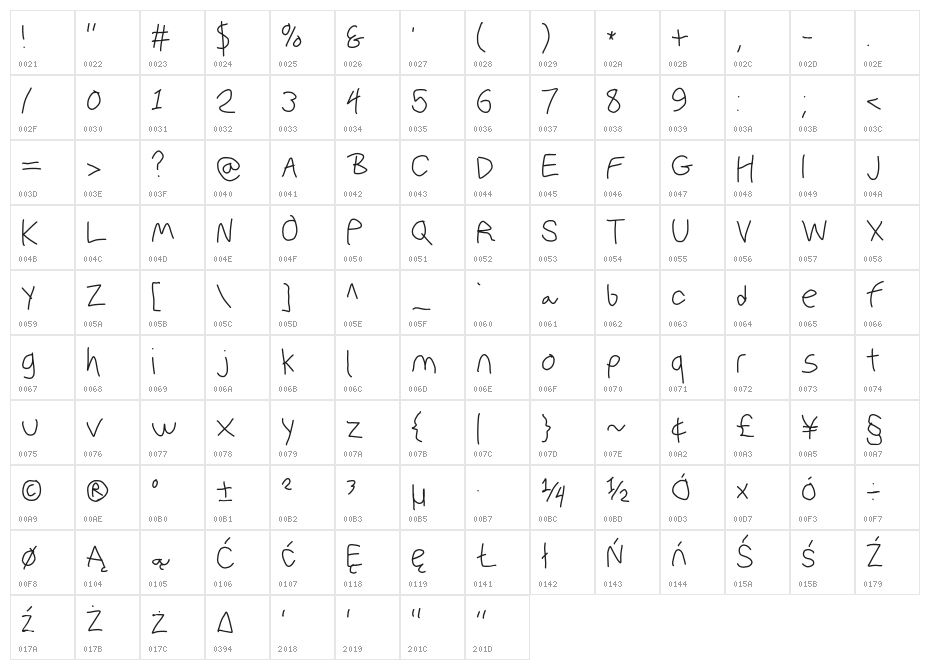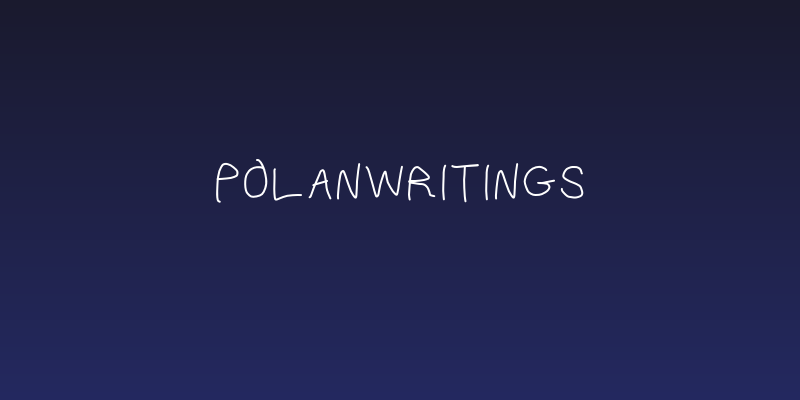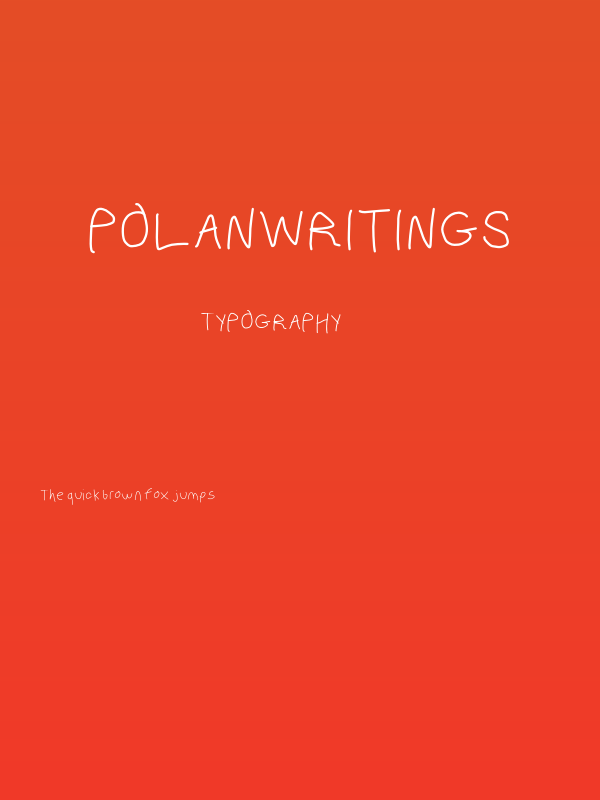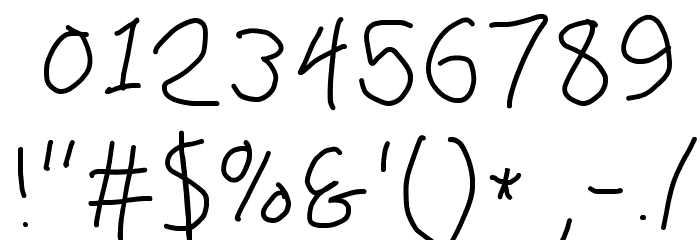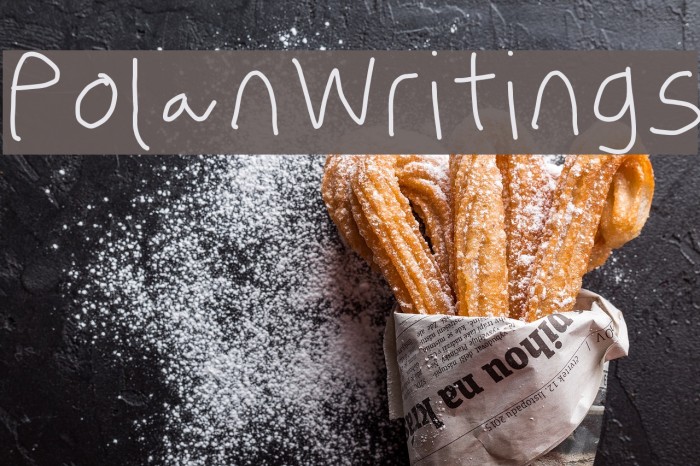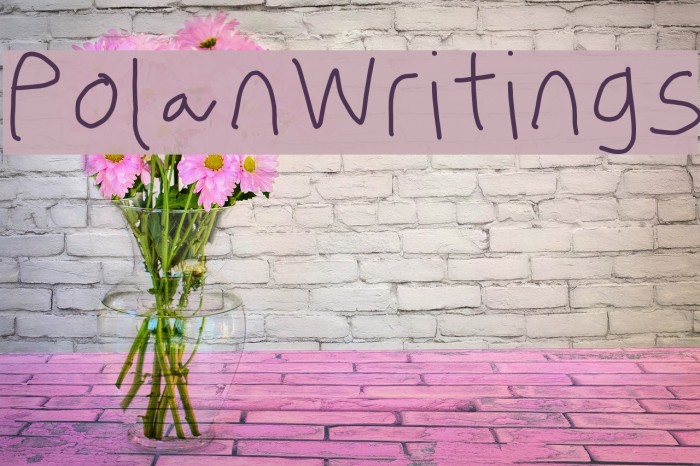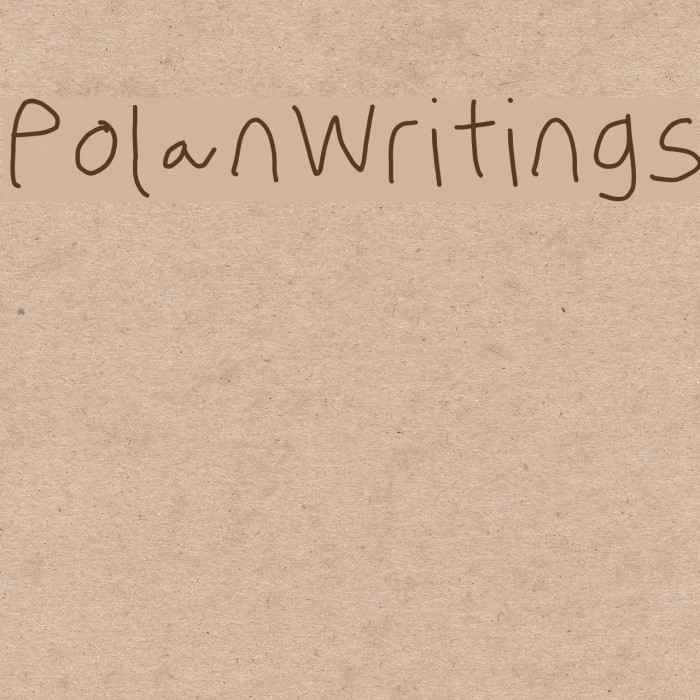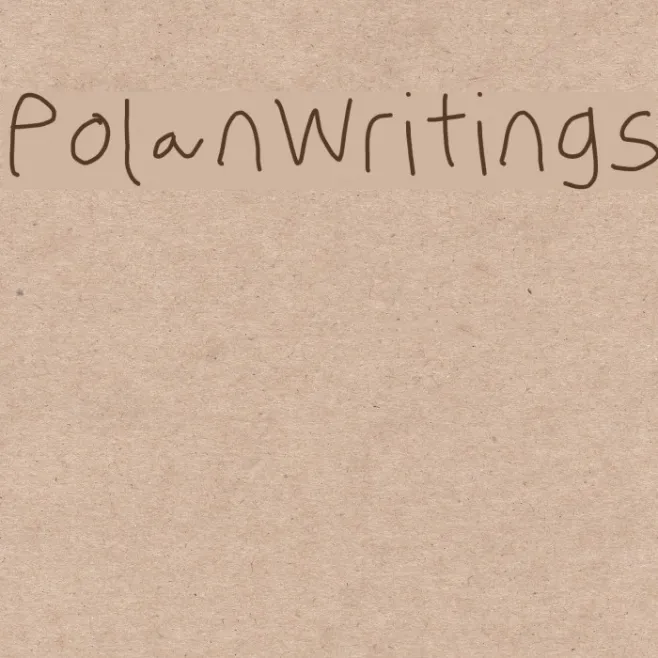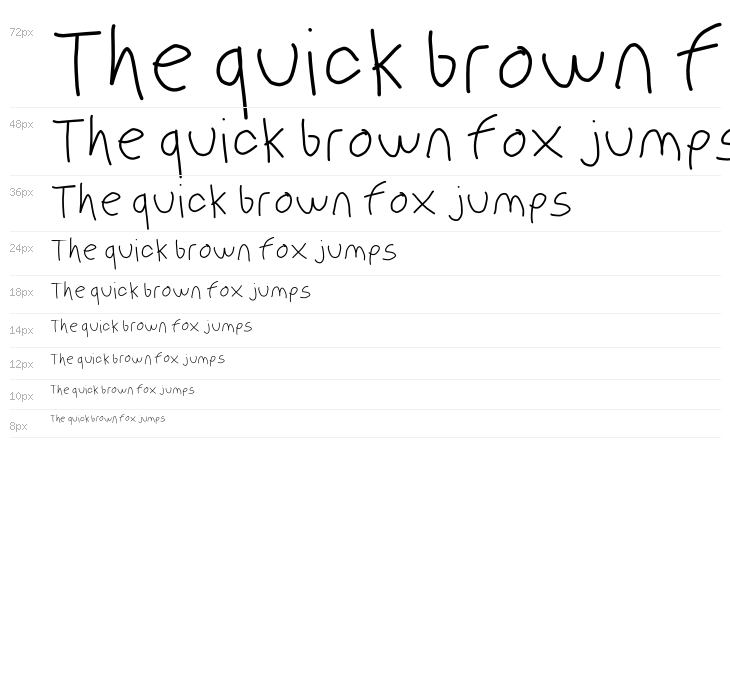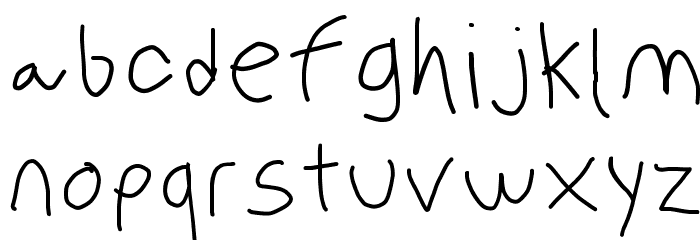
PolanWritings Font
PolanWritings Description
This font exhibits a casual, handwritten style with a playful and informal appearance. The letters are slightly irregular, mimicking natural handwriting, which adds a personal touch to any design. The strokes are consistent in thickness, giving it a uniform look while maintaining a relaxed feel. The characters are well-spaced, ensuring readability, and the overall design is approachable and friendly. This font is suitable for projects that require a human touch, such as personal notes, invitations, or creative projects that aim to convey warmth and authenticity.
| Use Case | Personal notes, Invitations, Creative projects |
| Proposed Projects | Ideal for personal notes, invitations, greeting cards, and creative projects requiring a human touch. |